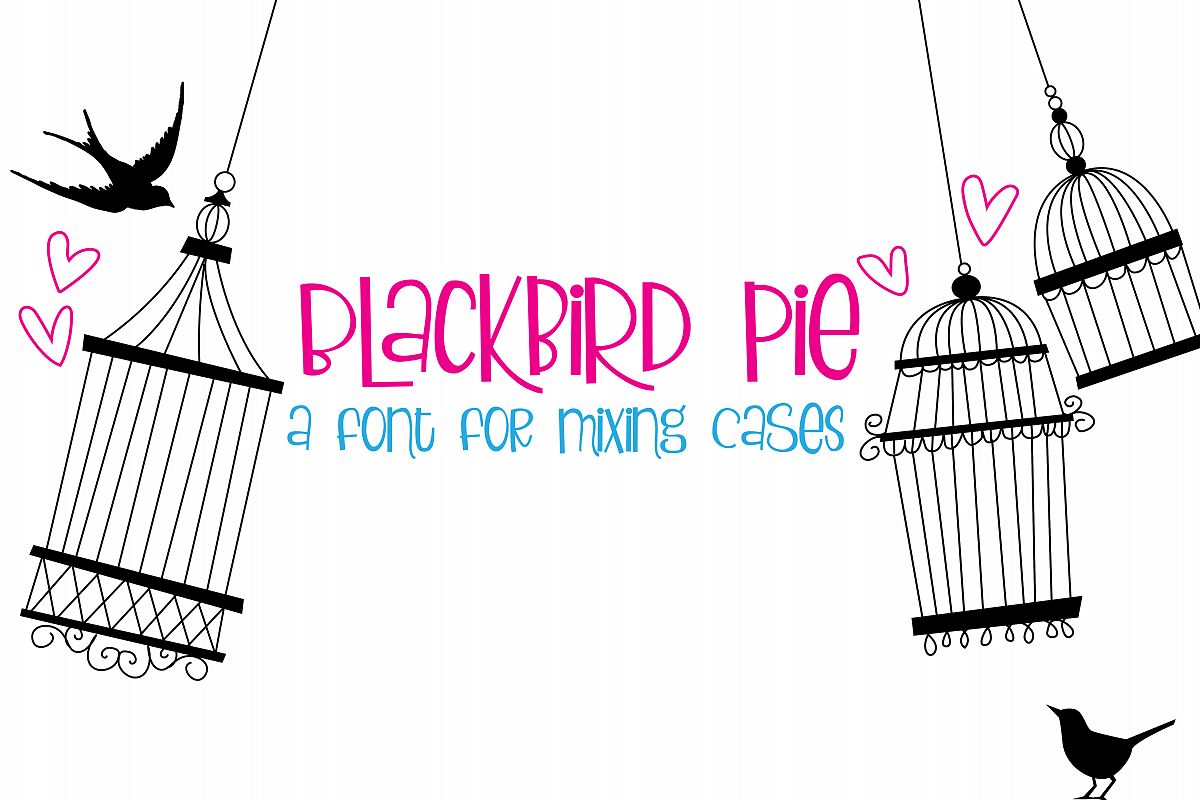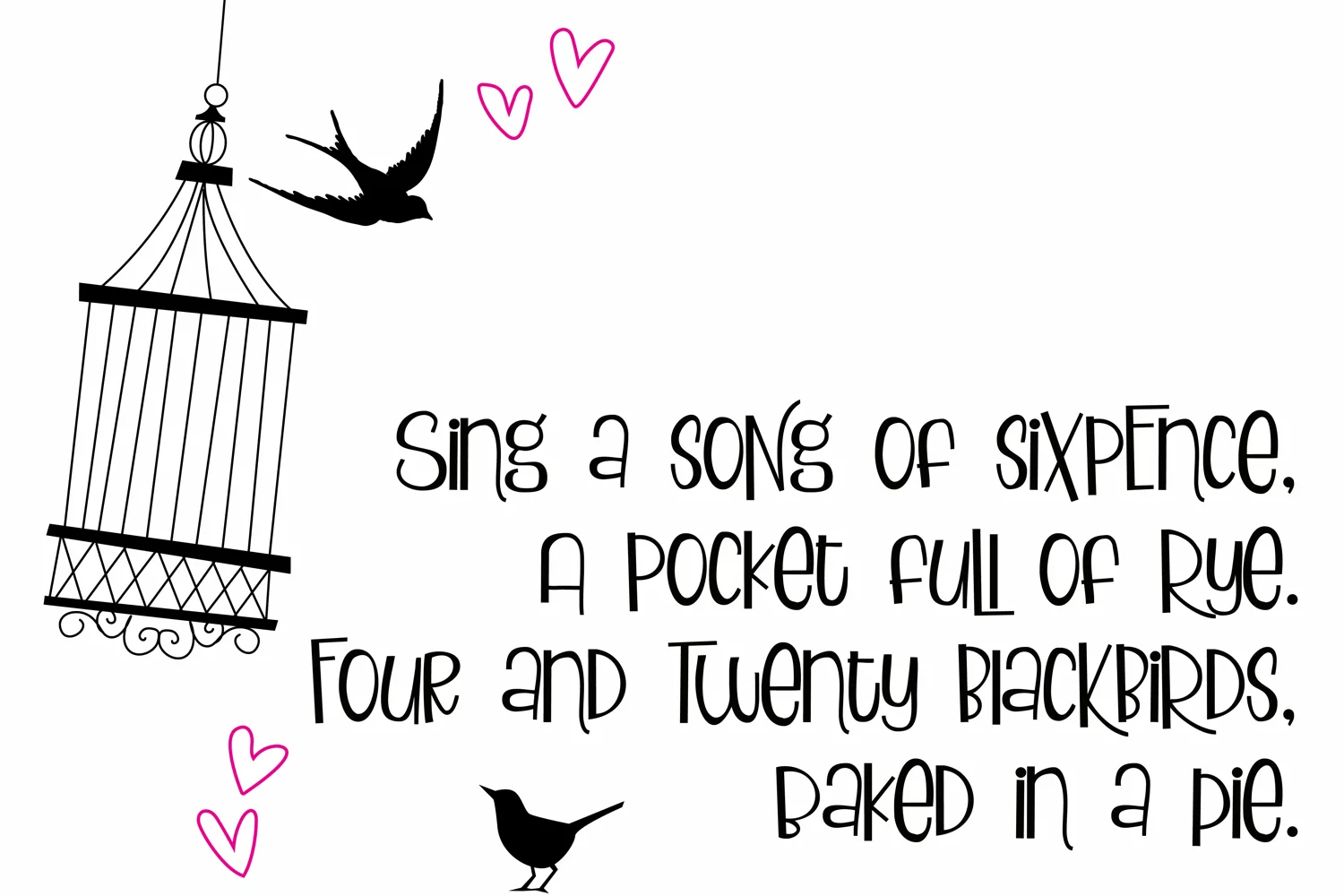
ZP Blackbird Pie
This adorable hand-crafted font has sever letters that interlock around others. It is a great font for mixing cases as you type to get creative looks.